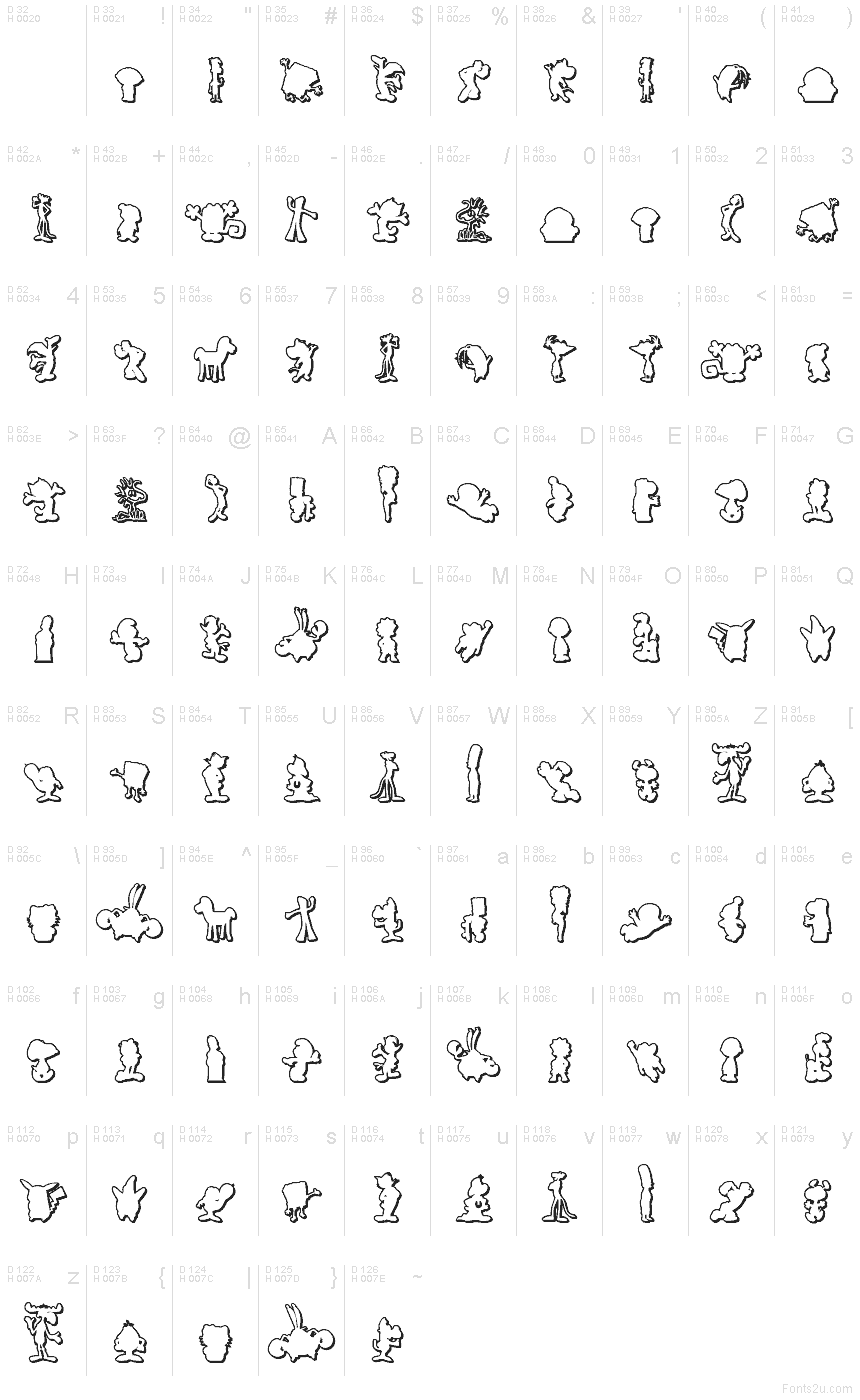
Toons! Toons! Toons! 3D
Toons! Toons! Toons! 3D font by Iconian Fonts is a free cartoon dingbats typeface that drops ready‑made character silhouettes into your layout with a single keystroke. Sitting within the Toons! Toons! Toons! family, its chunky, inky outlines and puffed 3D feel read instantly at a glance—like sticker art you can scale from button-size to billboard without losing charm.
Using Toons! Toons! Toons! 3D, you can quickly build kids’ birthday flyers, classroom posters, toy packaging comps, sticker sheets, comic panels, and playful YouTube thumbnails or game menus. The consistent stroke weight keeps a lively rhythm across a spread, so mixes feel intentional rather than chaotic. Pair this free font with a clean rounded sans for captions, and keep the dingbats large for punchy, high‑impact icons.
Toons! Toons! Toons!" contains over 60 silhouette dings of famous cartoon characters that are not from Warner Bros or Disney. There are dings of Rocky & Bullwinkle, Tom & Jerry, The Simpsons, Garfield, Popeye, Woody Woodpecker, Peanuts, Spongebob, Family Guy and many more. Each ding has a mirrored counterpart between the upper and lower cases.